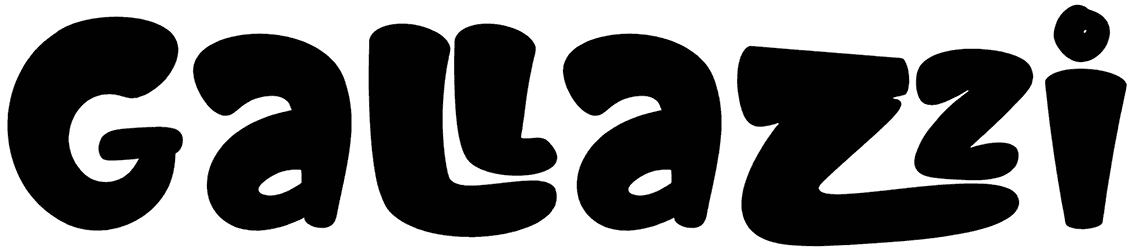
Buggy Font
Have you considered how important a perfect font is for your designs? Here is a fantastic option for you, a groovy font with bold letters. You can utilize Buggy for cartoons, stickers, stationery products, and so forth. If you need more, just visit our categorized library and enjoy the variety of 80s script fonts.
Designed by: Don Marciano